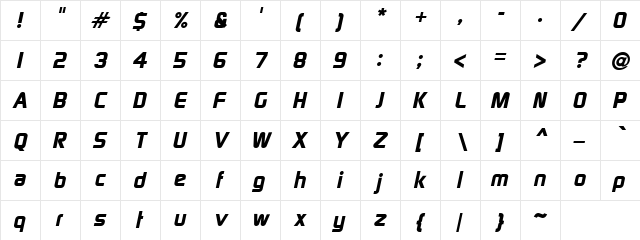
Space Gothic Italic
| Designer | Mike Doughty |
Design Context for Space Gothic Typeface
Space Gothic takes a clean, functional approach — its unadorned letterforms prioritise legibility and work reliably across screen and print environments. The dynamic lean of this cut emphasises speed and emphasis in any layout.
Font Pairing: Works well alongside a characterful serif or display font that can carry the expressive load while Space Gothic handles the functional copy.
Pro Tip: Use Space Gothic for UI labels, navigation, and short-form body copy where clean legibility is the priority.